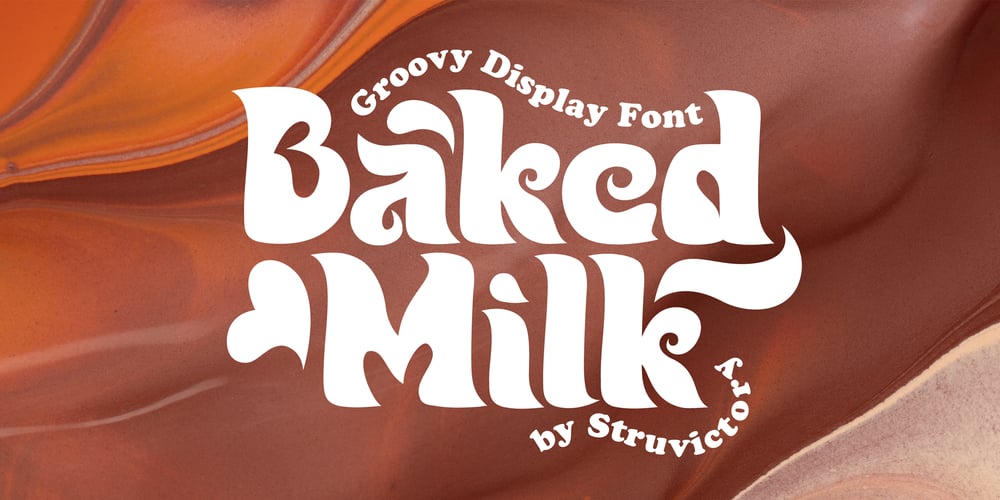
Baked Milk Font Family was designed by Viktoryia Strukouskaya, Viktor Strukouski and published by Struvictory.art. Baked Milk contains 2 styles and family package options. Baked Milk is a display font family with nostalgic motives. The font is created in a groovy retro style. Baked Milk includes Regular and Symbol Styles. The font is suitable for retro summer posters, menu and social media design, branding, event design etc.Baked Milk has extensive language support, it includes English, French, German, Italian, Spanish, Portuguese, Danish, Norwegian, Swedish, Finnish, Estonian, Turkish. Baked Milk font contains ligatures: aa, dd, ff, ft, hh, jj, kk, ll, mm, nn, oo, pp, rf, rr, rt, ss, tt, uu, Ti.